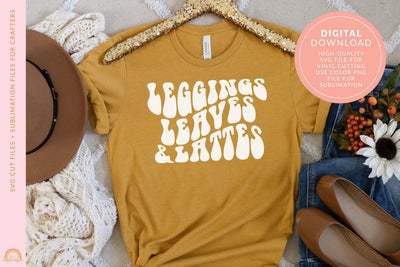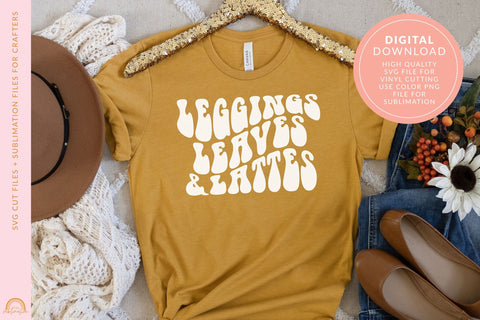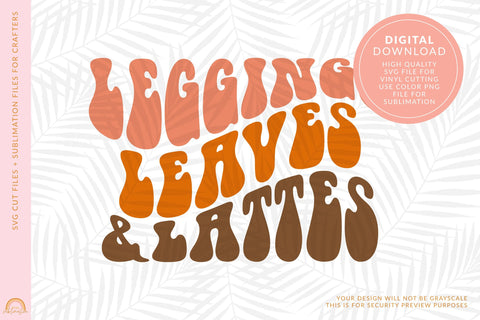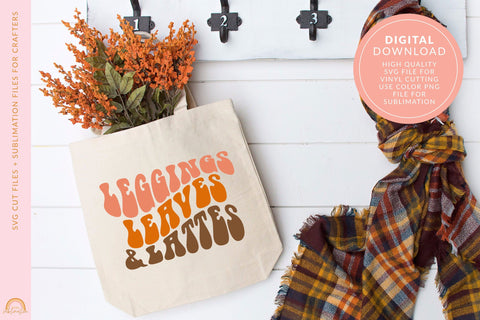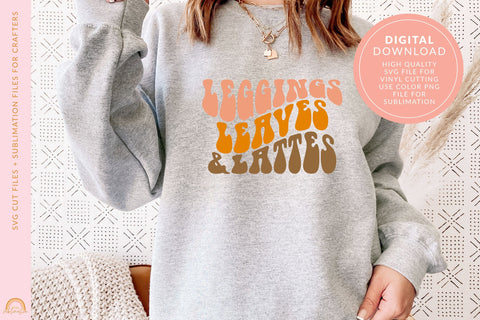
Fall SVG Design Leggings Leaves and Lattes SVG File HM
This cute fall SVG file features the phrase Leggings Leaves & Lattes and designed in a groovy font is a great way to cozy up to Autumn.